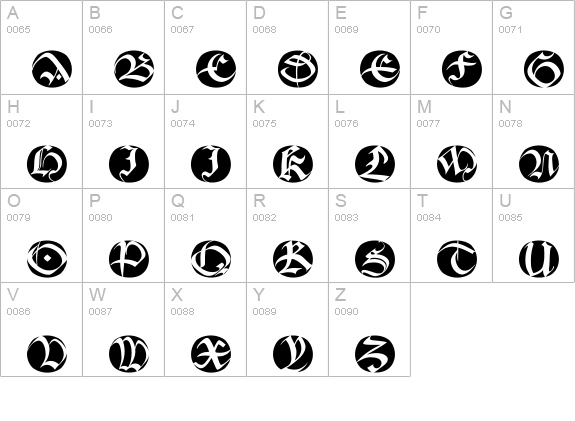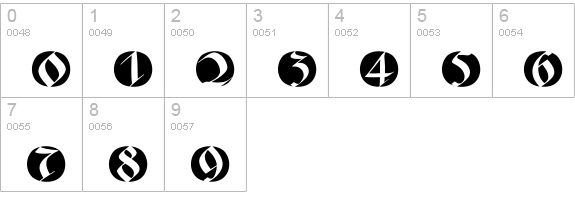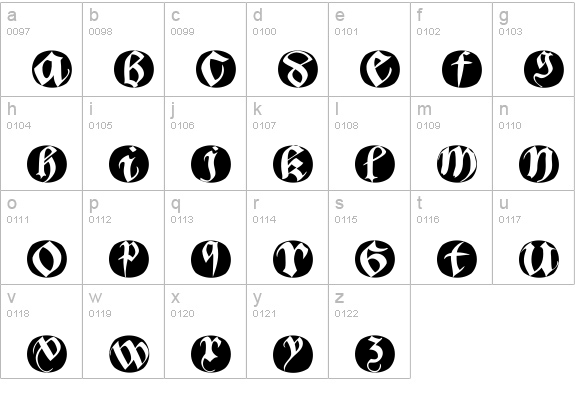
BastardaButtonsBeta Font Details
BastardaButtonsBeta is a unique and eye-catching font that combines classic elegance with a modern twist. Its intricate details and bold design make it perfect for adding a touch of sophistication to any project. This font is versatile and can be used for a wide range of design purposes, from logos to posters to invitations. One of the best things about BastardaButtonsBeta is that it is completely free to download. You can easily access this stunning font at FontsMarket.com without having to worry about any costs. Whether you're a professional designer looking for a new font to add to your collection or just someone who loves experimenting with different styles, BastardaButtonsBeta is a great choice. Download it today and elevate your designs to the next level!